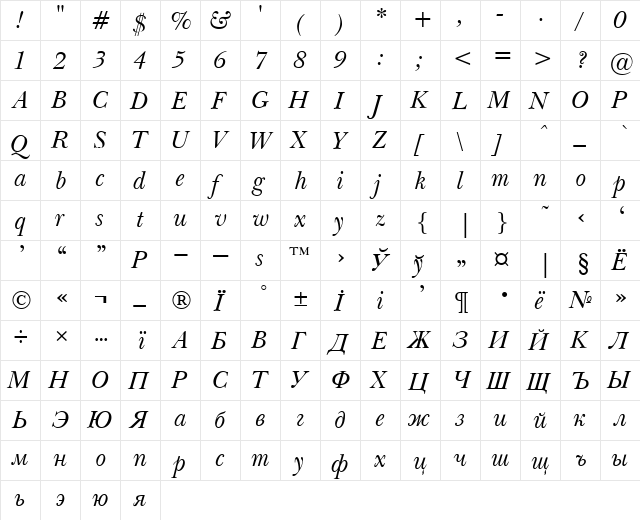
Pasma Italic
Design Context for Pasma Typeface
Pasma offers clean, dependable letterforms without strong stylistic allegiance, making it a practical choice for designers who need flexibility. Its italic angle brings a sense of urgency and motion to the letterforms.
Pro Tip: Try Pasma for annotation and caption copy alongside an upright companion — the contrast in angle creates a dynamic but ordered typographic system.